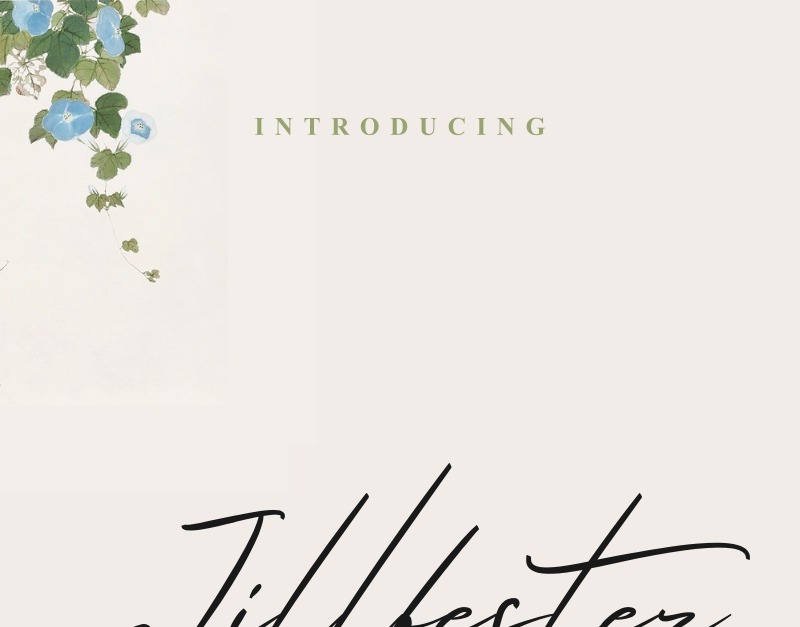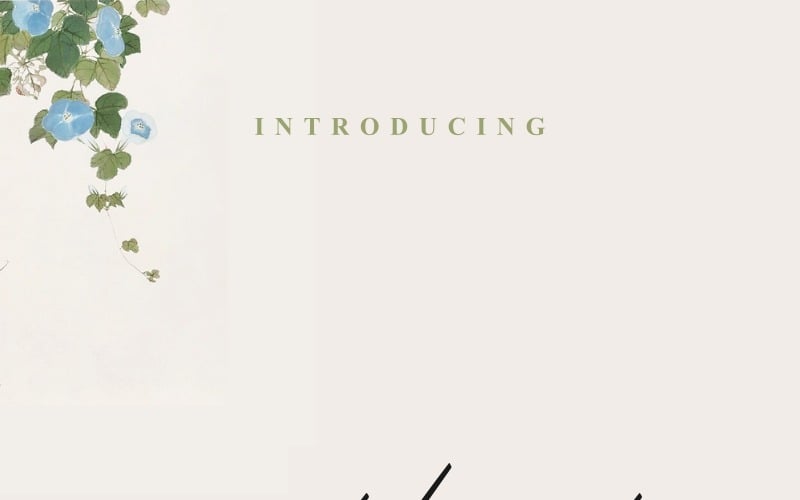
Jillfester Font
Hello everyone! Let us introducing our latest creation : Jillfester Brush Font
We made it in 2019 in our loverly studio : Bandung Indonesia
Jillfester Brush Font has two styles : clean and textured brush glyphs. This font will be great for many projects : branding, logotype (with extended license), stationery, business card, signage, flyer, brochure, promotional materials etc. There are many industries that is suitable for this font : Creative, art, fashion, travel, hotel etc